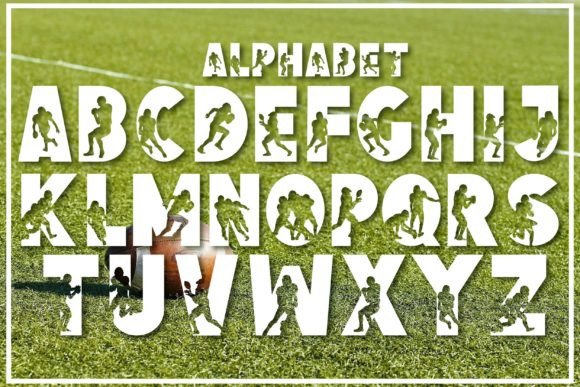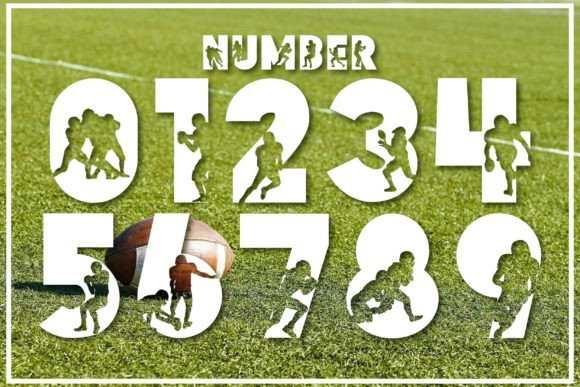
American Football Font: The Ultimate Decorative Font for Sports-Inspired Designs
Are you a designer or crafter looking for a font that can add a bold and authentic touch to your creative projects? Look no further than the American Football font! This decorative font is perfect for anyone who wants to create sports-inspired designs that stand out from the crowd.
What is American Football Font?
American Football font is a bold and authentic decorative font that is inspired by the classic look of American football jerseys and logos. It features thick, blocky letters with a sporty feel that is sure to grab attention. Whether you’re designing a logo, poster, or craft project, this font is sure to add a touch of excitement and energy to your work.
Key Features of American Football Font
- Bold and Authentic Design: The American Football font features a bold and authentic design that is inspired by the classic look of American football jerseys and logos.
- Easy to Read: Despite its bold design, the American Football font is easy to read, making it perfect for use in a variety of design projects.
- Versatile: This font can be used in a variety of design projects, from logos and posters to craft projects and more.
How to Use American Football Font
The American Football font is perfect for a variety of design projects, including:
- Logos and Branding: Use the American Football font to create a bold and memorable logo for your sports team, business, or organization.
- Posters and Flyers: Add a touch of excitement to your posters and flyers with the American Football font.
- Craft Projects: Use the American Football font to add a personal touch to your craft projects, such as scrapbooking, card making, and more.
- Social Media Graphics: Use the American Football font to create eye-catching social media graphics that are sure to grab attention.
Why Choose American Football Font?
There are many decorative fonts to choose from, but the American Football font stands out from the crowd. Here are just a few reasons why:
- Unique Design: The American Football font features a unique design that is inspired by the classic look of American football jerseys and logos.
Tips and Tricks for Using American Football Font
Here are a few tips and tricks for using the American Football font:
- Pair with Other Fonts: The American Football font pairs well with other fonts, such as sans-serif fonts and script fonts.
- Use in Combination with Images: Use the American Football font in combination with images of American football players, stadiums, or equipment to create a sports-inspired design.
- Experiment with Colors: The American Football font looks great in a variety of colors, including team colors, metallic colors, and more.